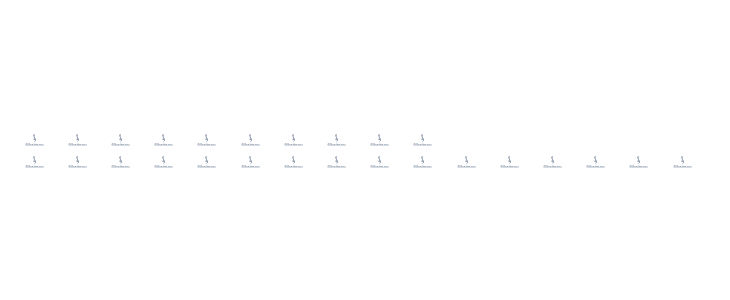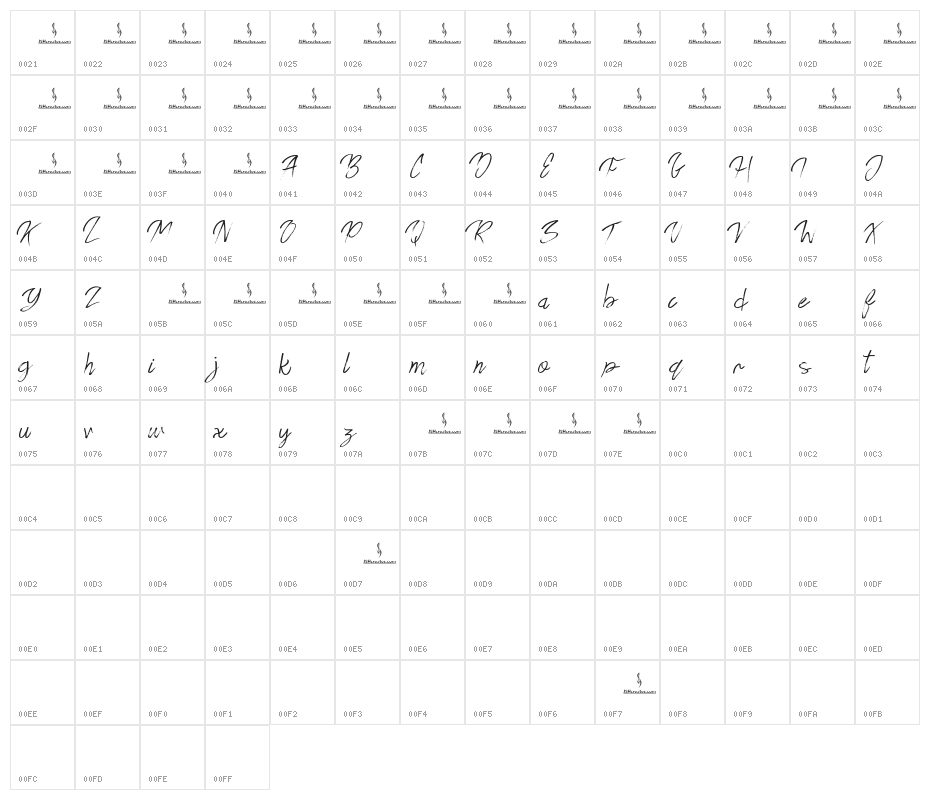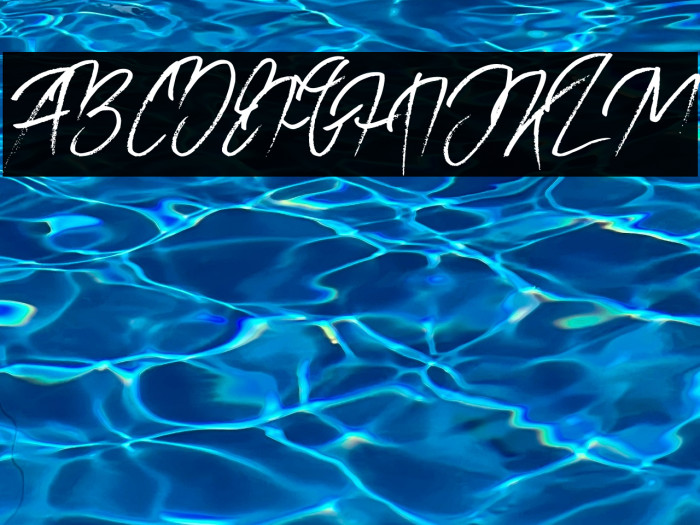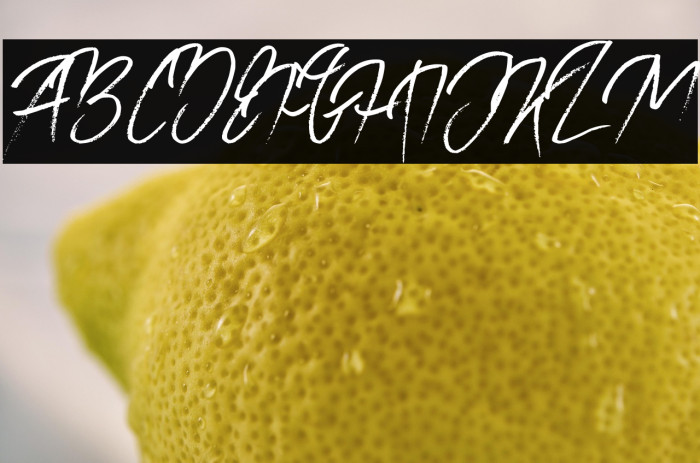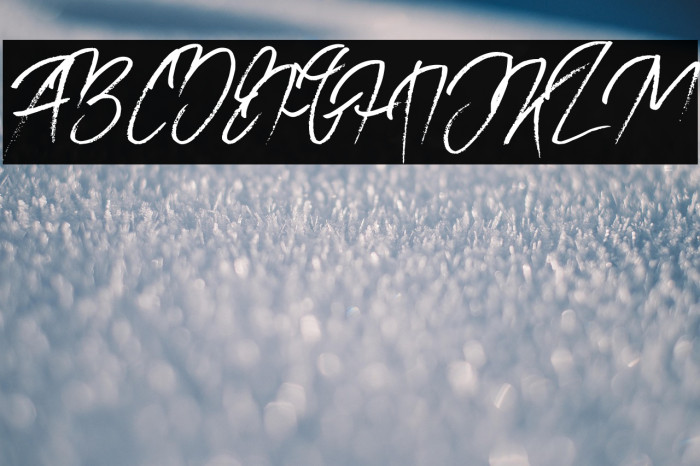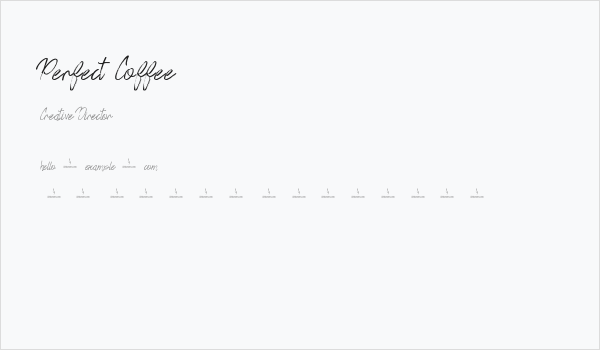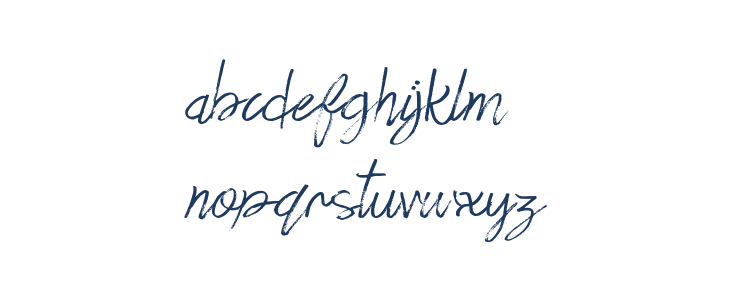
Perfect Coffee Font
Perfect Coffee Description
This font exudes a dynamic and energetic style, characterized by its brush-like strokes and fluid, cursive design. The letters are crafted with a sense of motion, as if painted with a swift, confident hand. Each character varies in thickness, adding a textured, artistic flair that mimics the appearance of ink on paper. The uppercase letters are bold and expressive, while the lowercase letters maintain a consistent flow, enhancing readability. The overall appearance is both modern and artistic, making it suitable for creative and expressive projects.
| Overall Style | Modern, Artistic |
| Use Case | Logos, Invitations, Artistic Posters |
| Proposed Projects | Ideal for branding, logos, invitations, and artistic posters. |